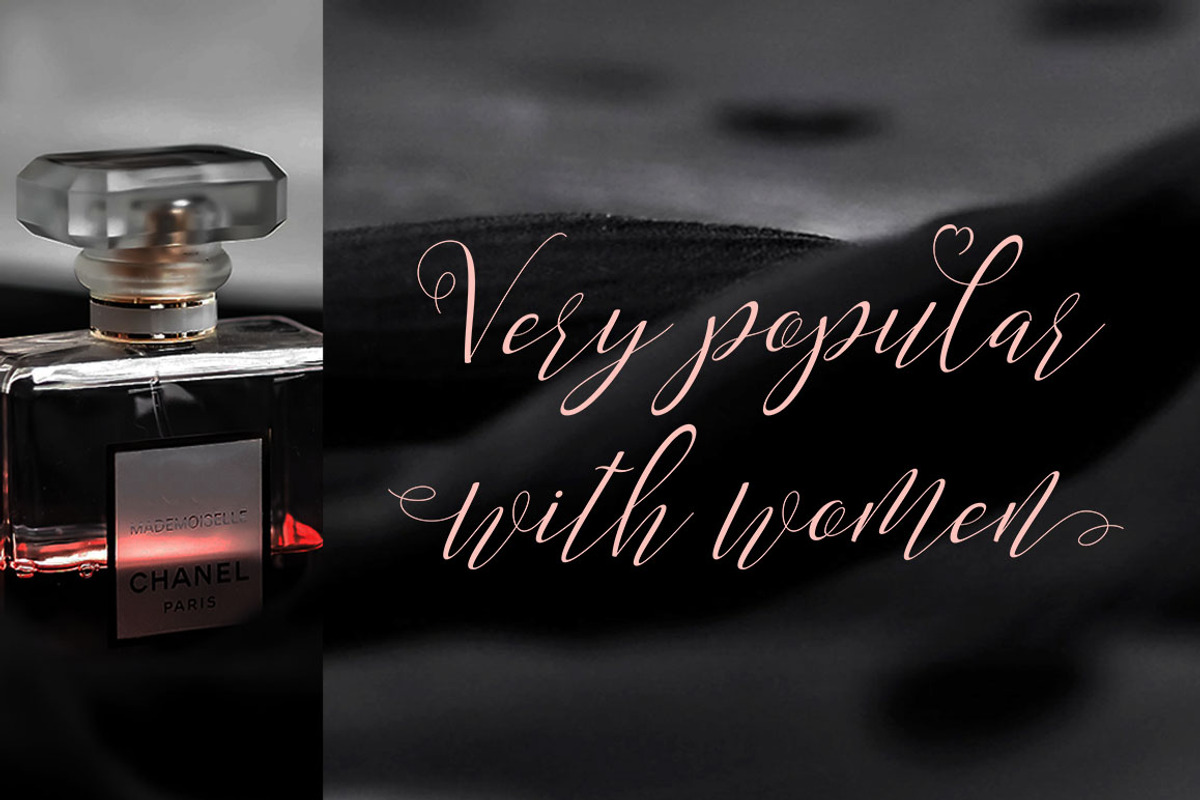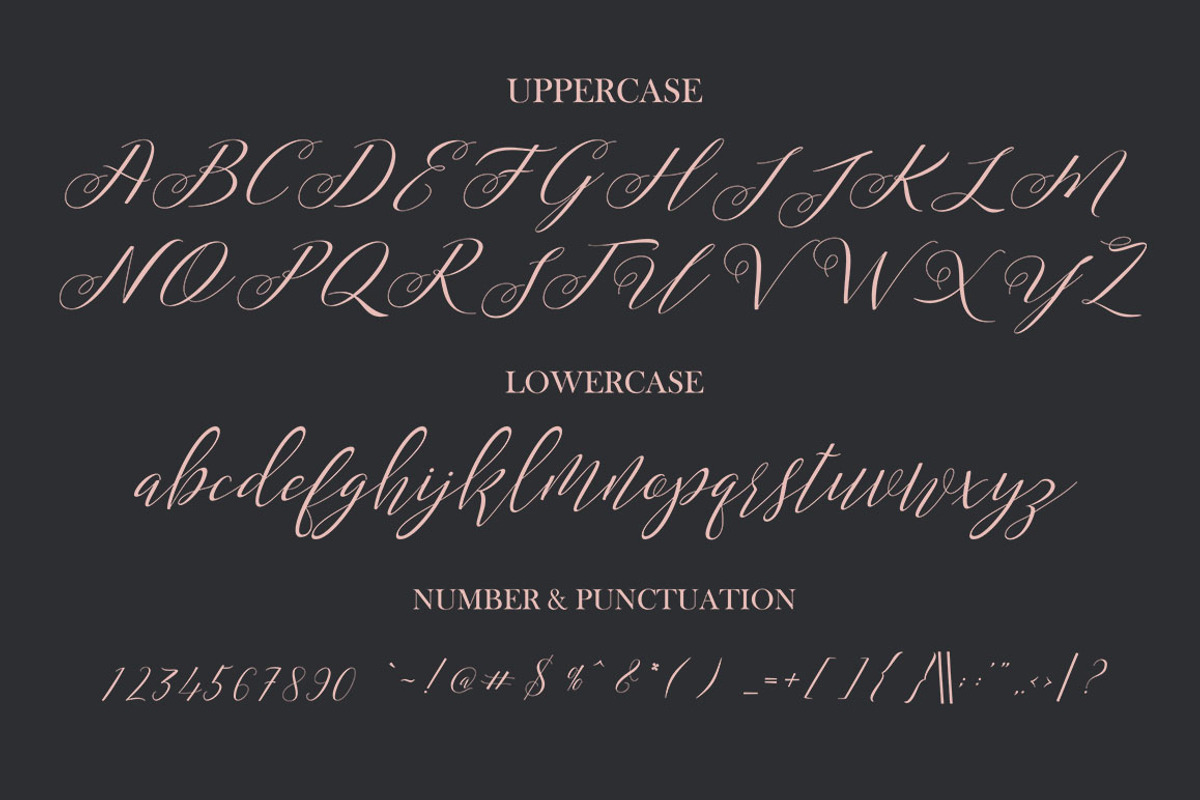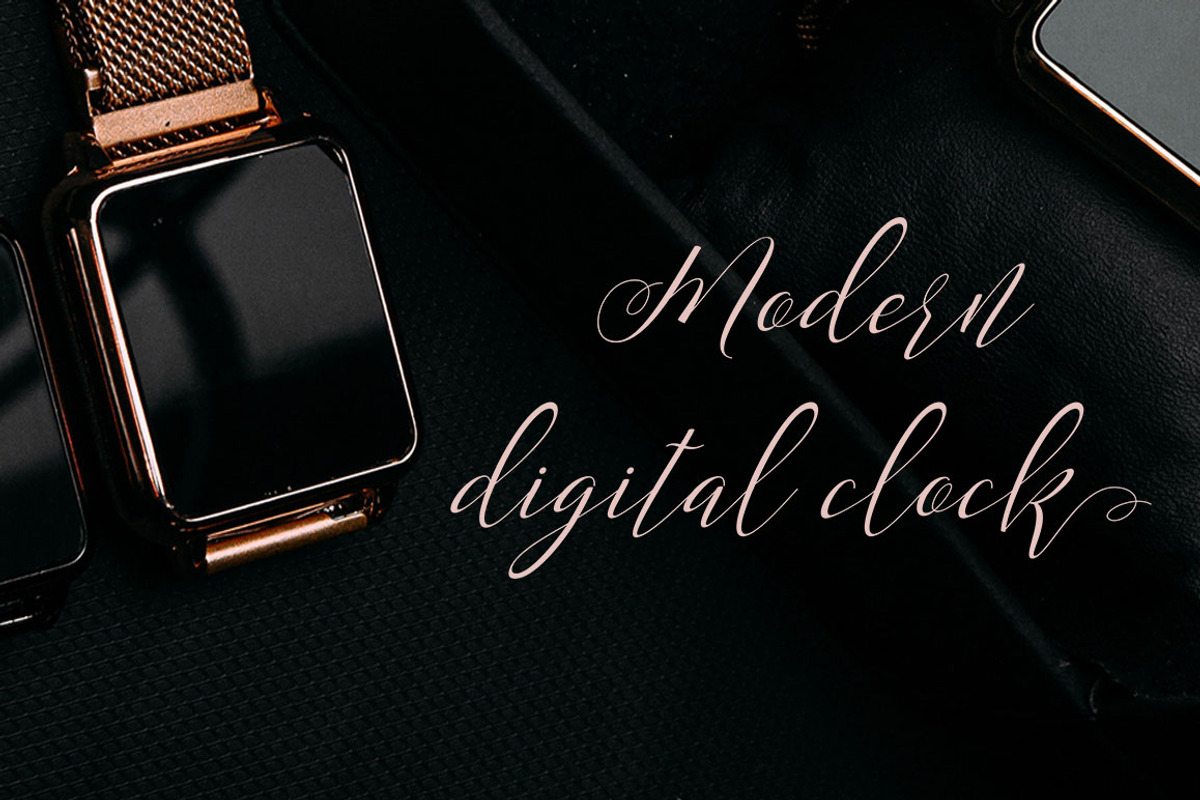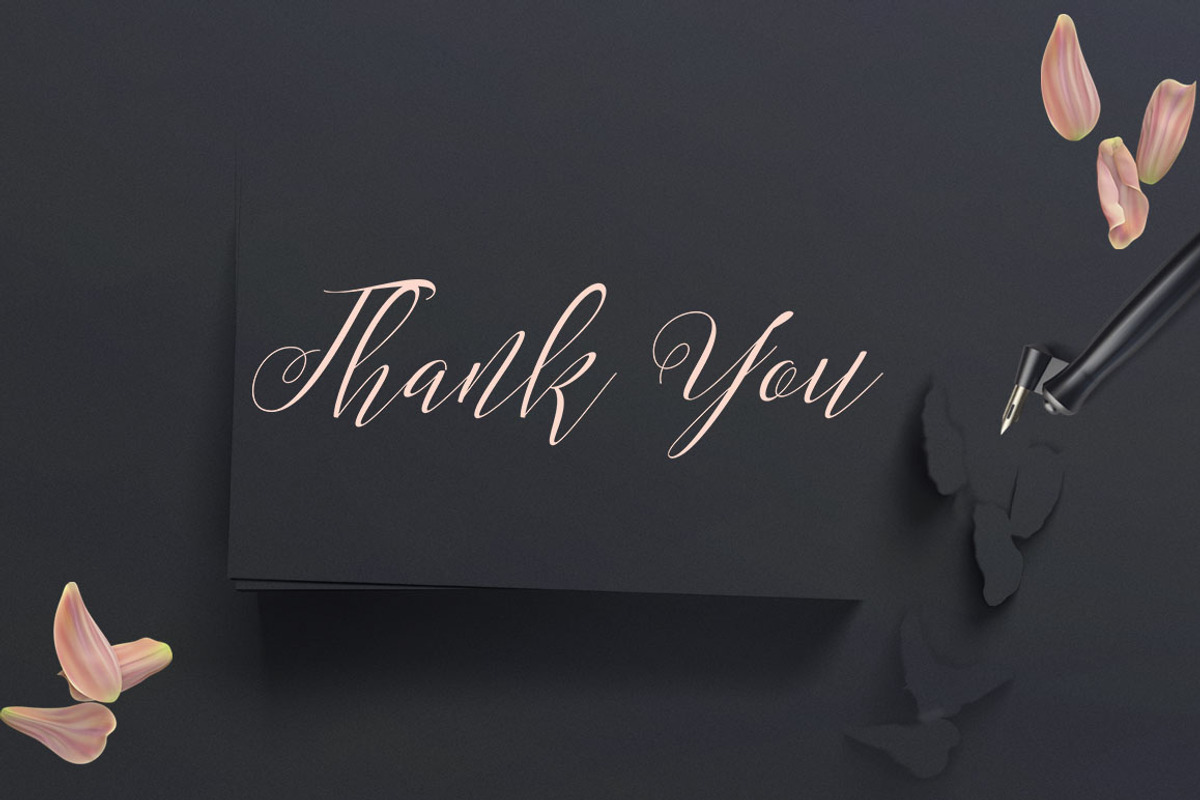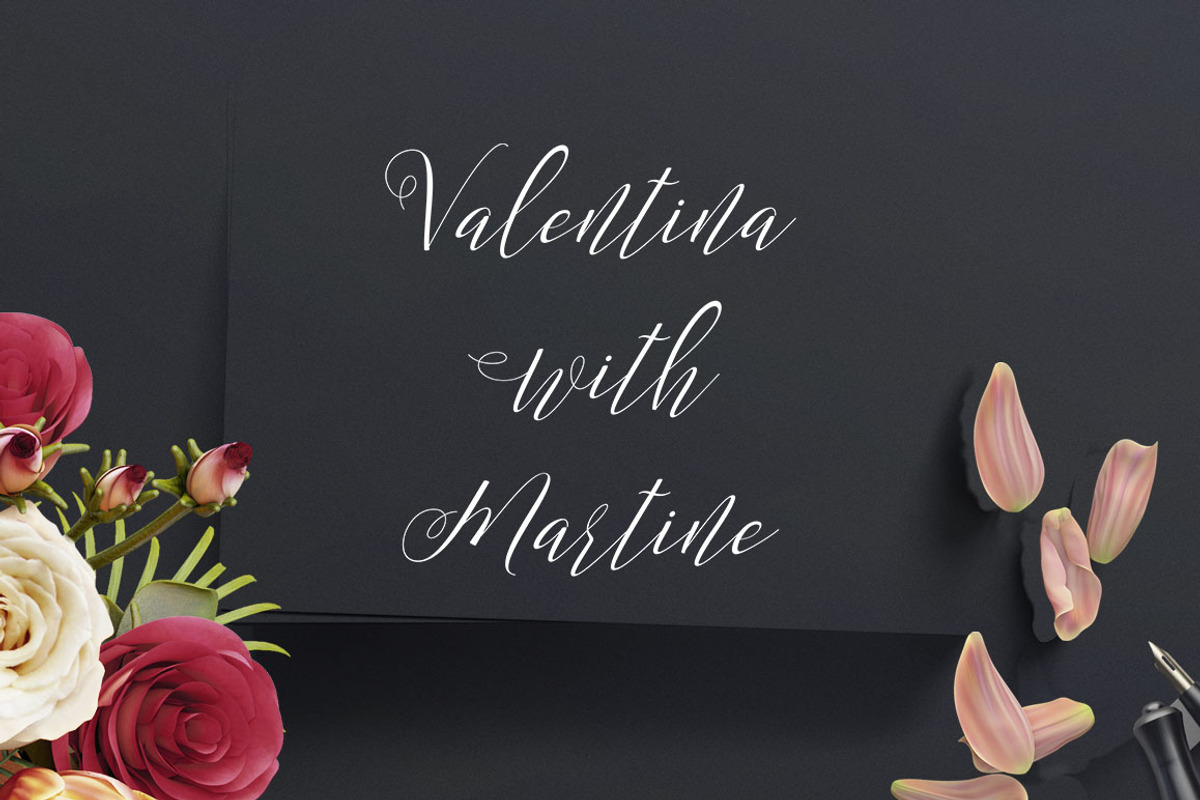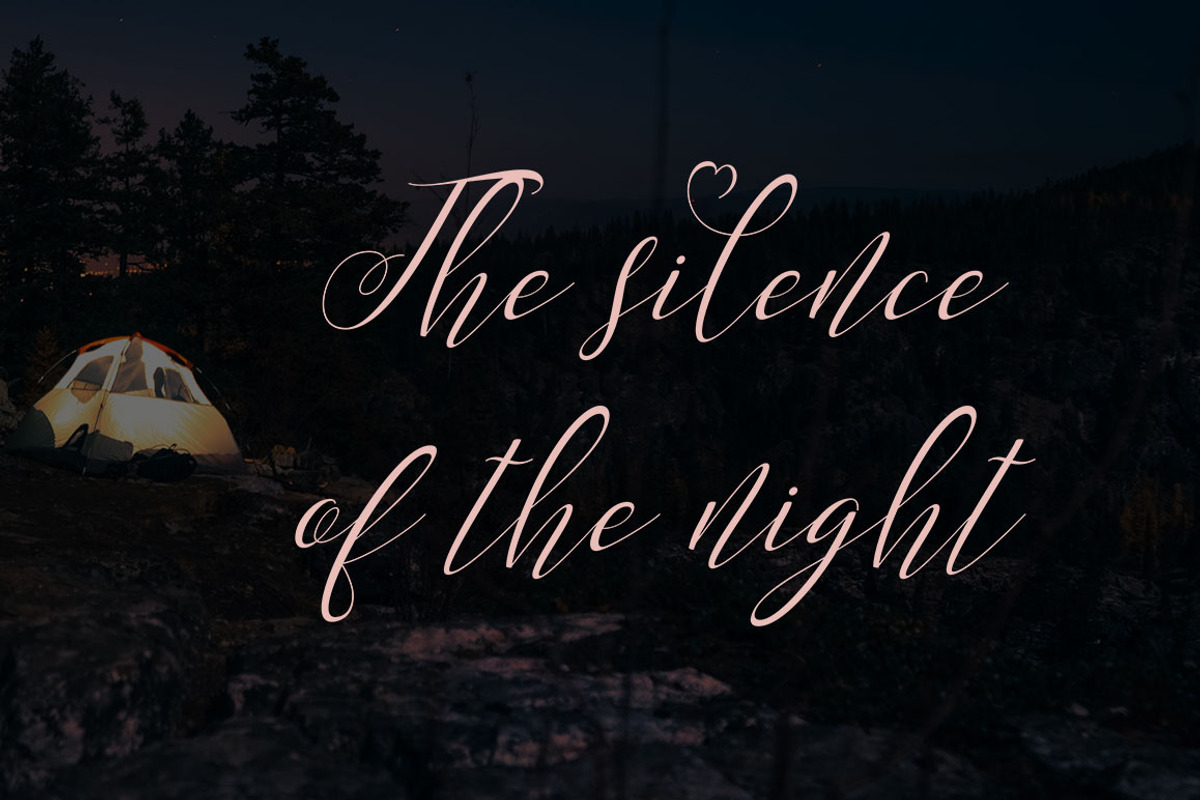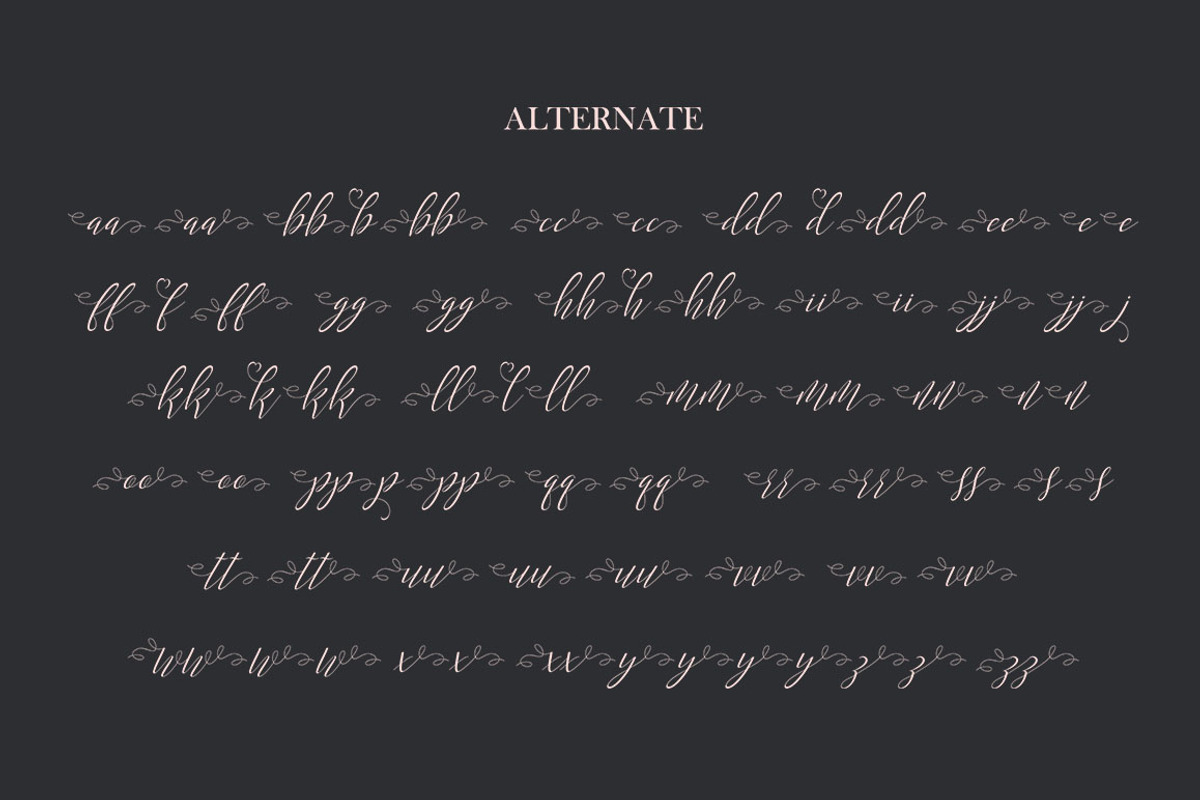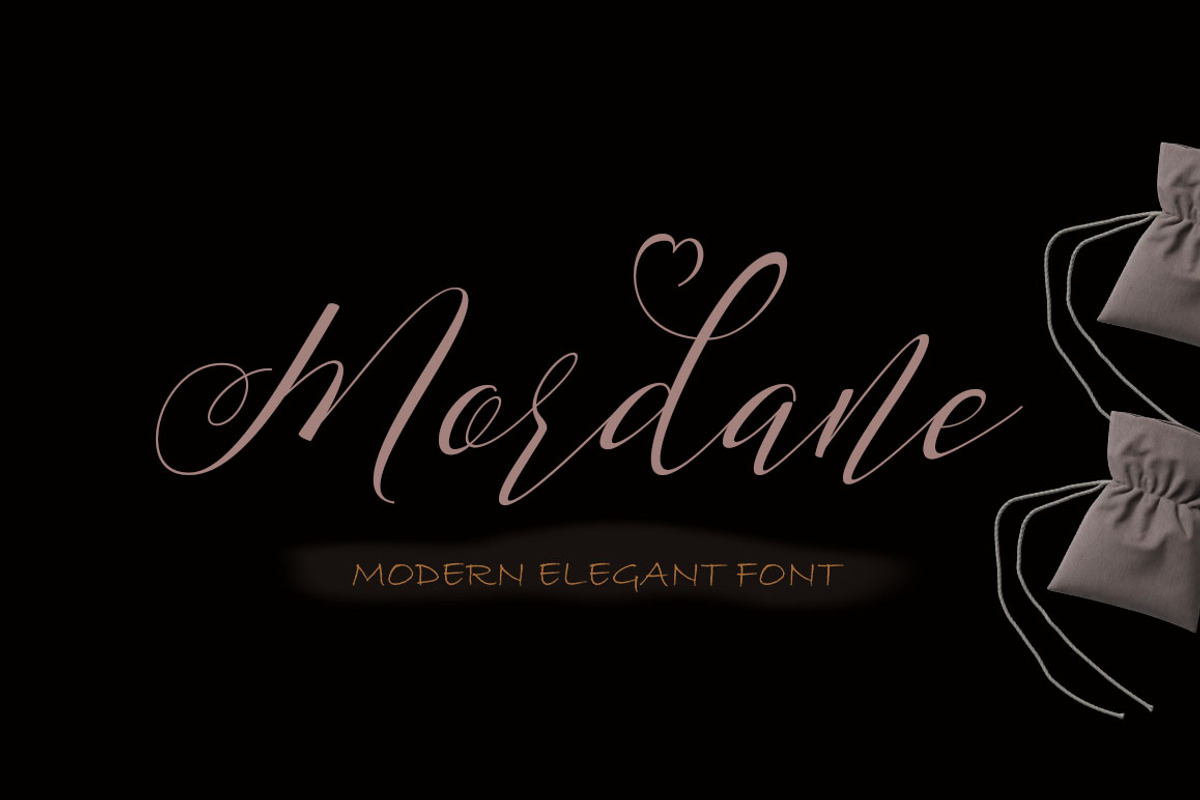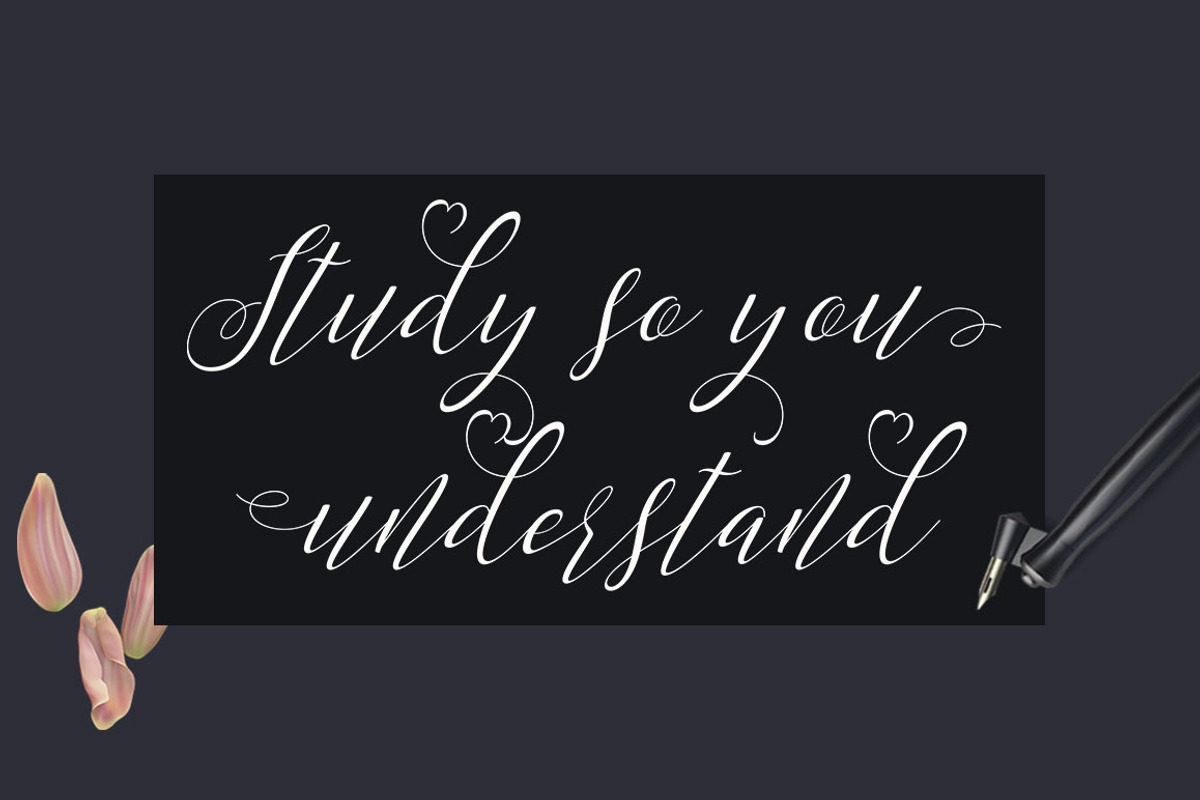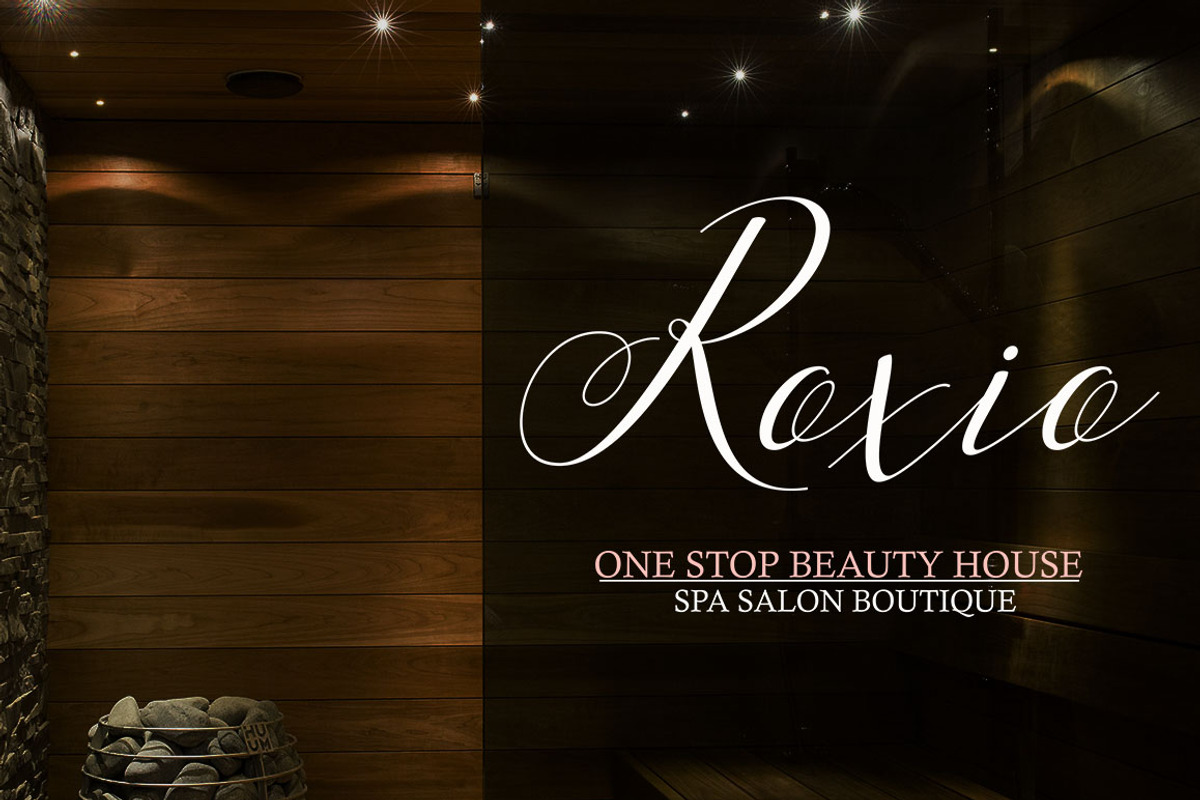
Mordane
Mordane is a modern script calligraphy, dynamic and pretty with swashes. Can used for various purposes. such as the title, signature, logo, wedding invitations, letterhead, signage, labels, newsletters, posters, badges, etc.
Mordane features Open type feature, including initial and terminal letters,ligatures and International support for most Western Languages is included.